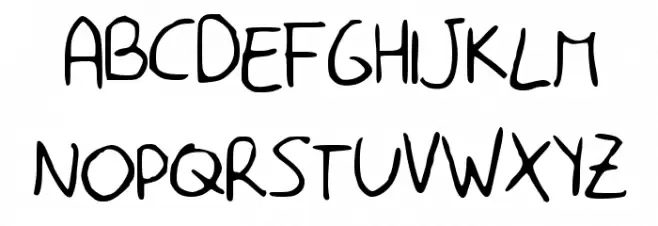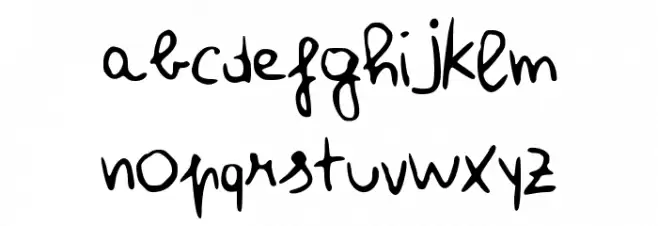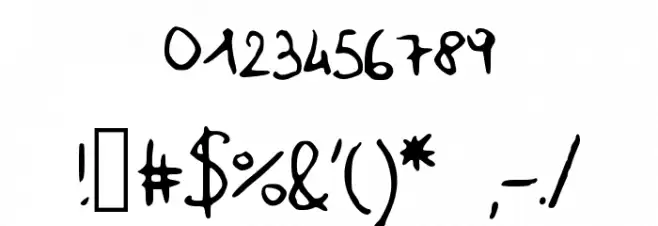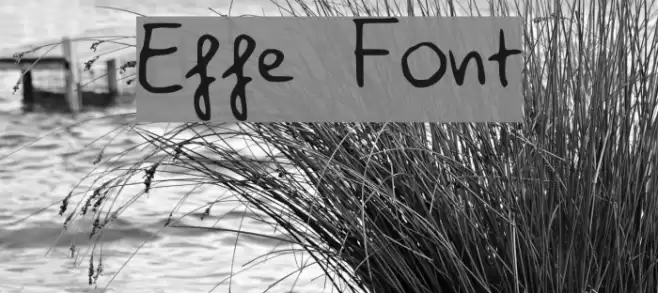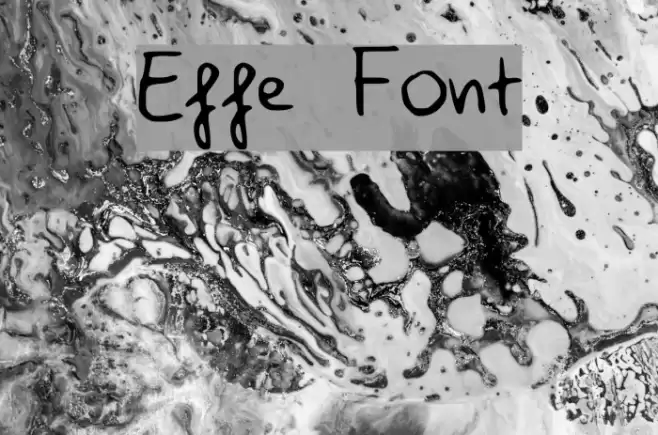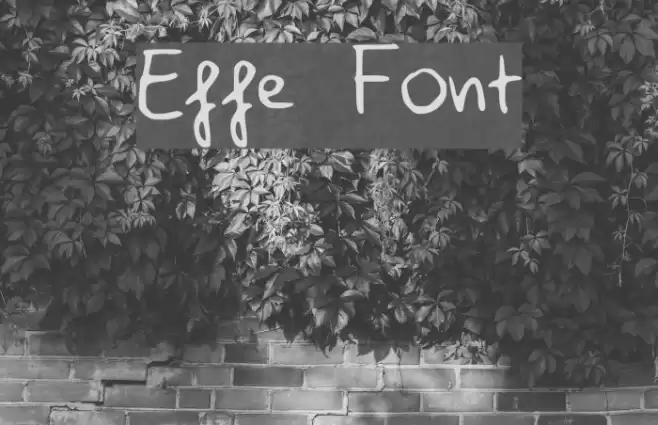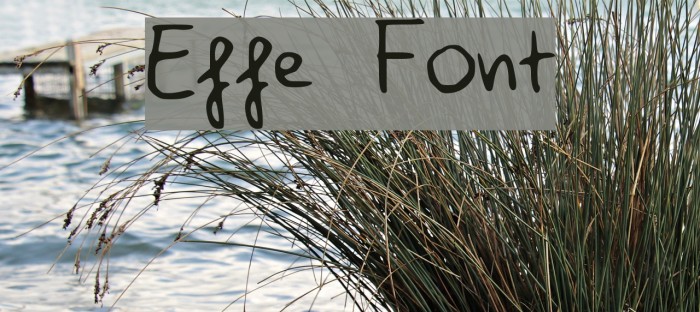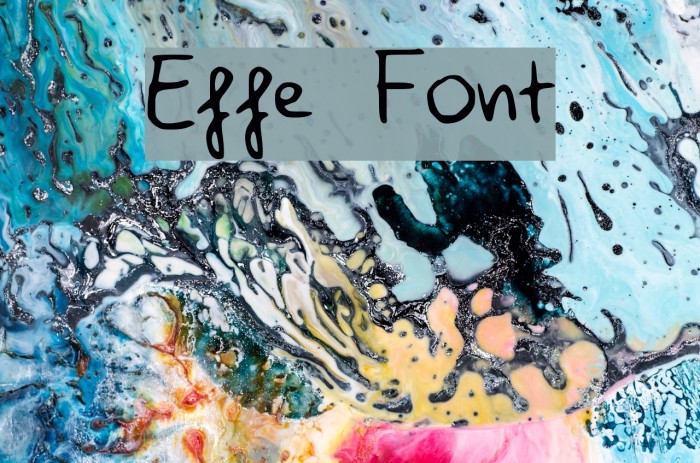
Effe
This font features a playful, handwritten style with a casual and informal appearance. The letters are slightly irregular, giving it a personal and approachable feel. The strokes are consistent in width, contributing to a uniform look despite the hand-drawn aesthetic. The uppercase and lowercase letters maintain a coherent style, with rounded edges and a slight slant that adds to the dynamic nature of the font. The numerals and special characters are crafted with the same playful touch, ensuring a cohesive overall design.
A playful, handwritten font with a casual and informal style.
- Proposed Projects: Ideal for greeting cards, children's books, personal blogs, and informal branding projects.
- Overall Style: Casual
- Use Case: Headlines, Informal text, Creative projects